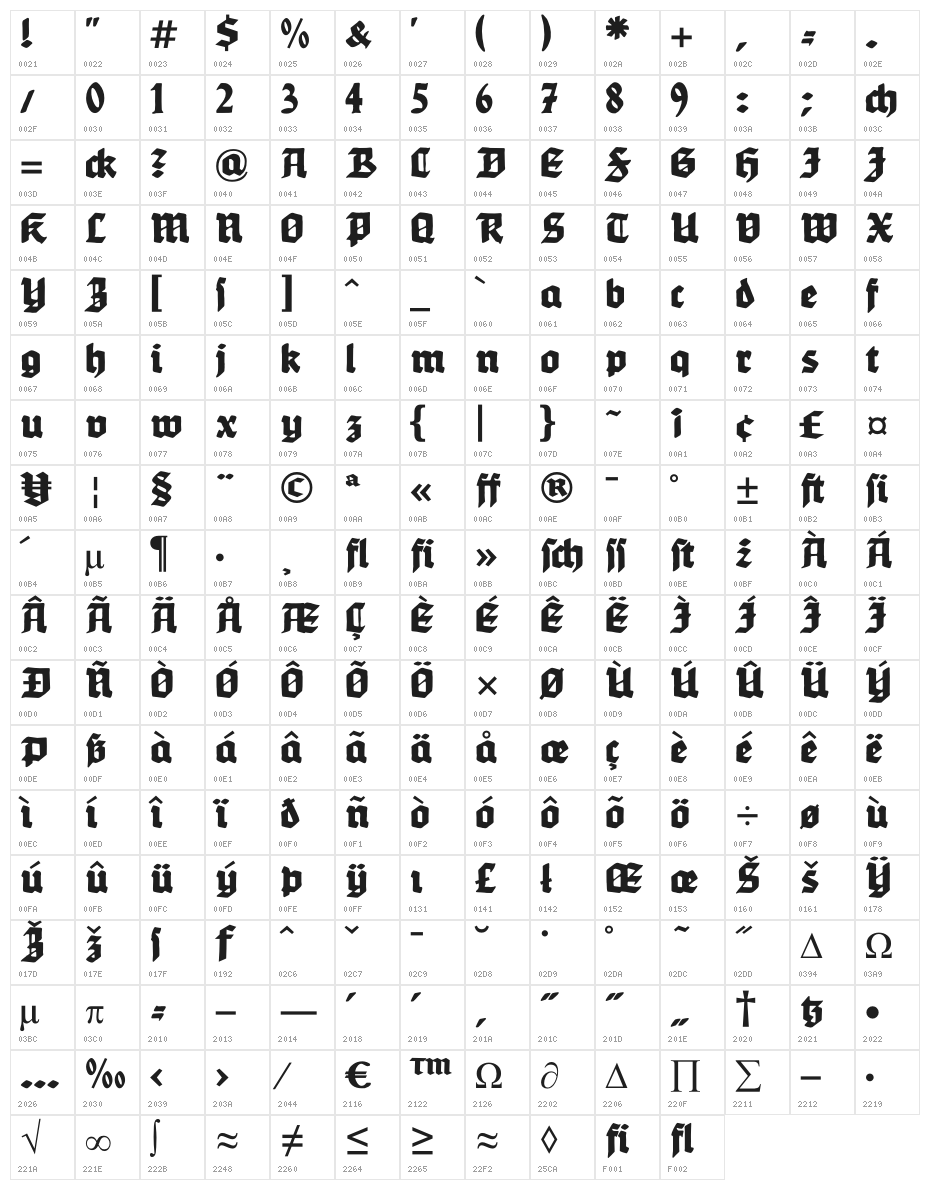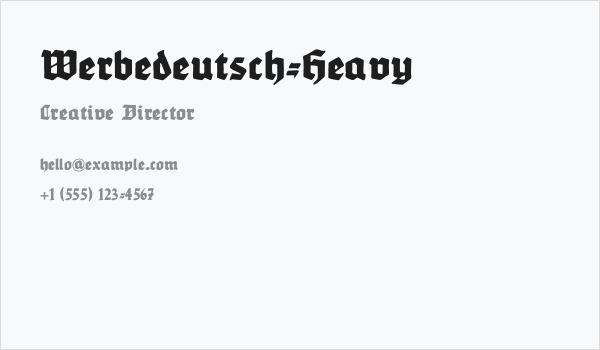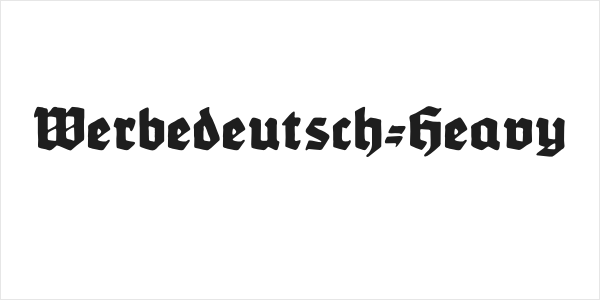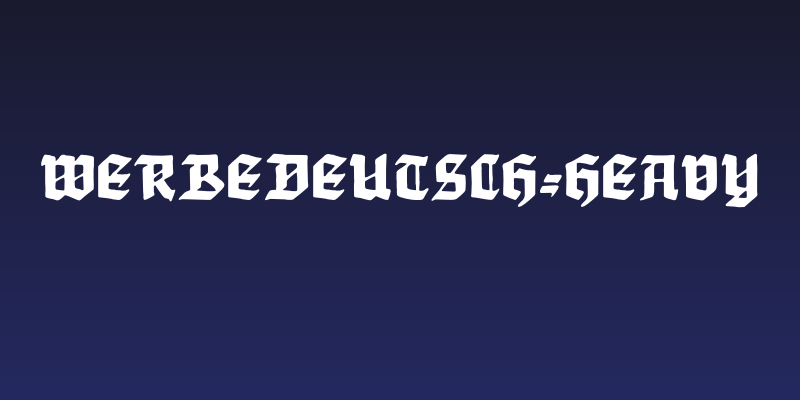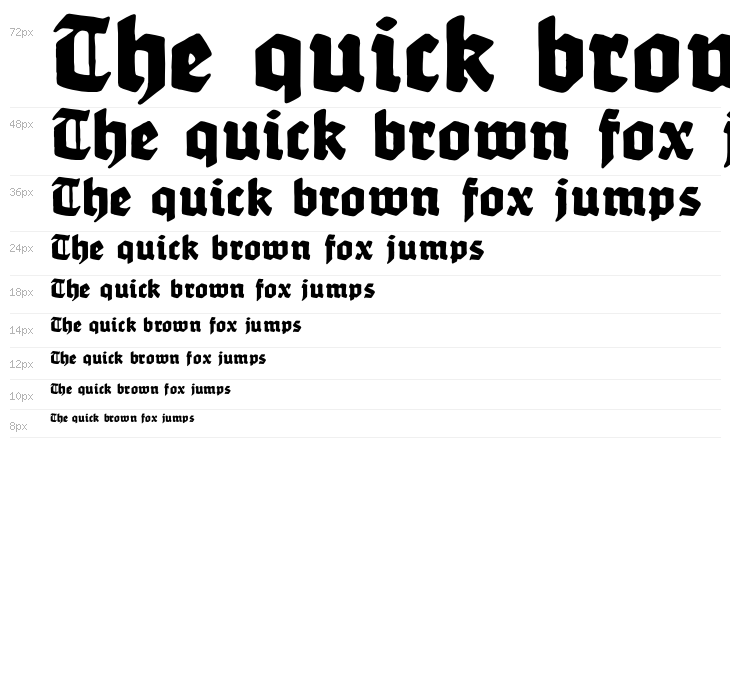
Werbedeutsch-Heavy Font
Werbedeutsch-Heavy Description
This font exhibits a bold and dramatic style reminiscent of traditional Blackletter typefaces. The characters are characterized by sharp, angular lines and a heavy weight, creating a strong visual impact. The uppercase letters are particularly striking, with intricate details and a sense of historical elegance. The lowercase letters maintain the same boldness, ensuring consistency throughout the typeface. Numerals and special characters are designed with the same attention to detail, making them suitable for various applications. The overall appearance is both authoritative and decorative, making it ideal for projects that require a touch of classic sophistication.
| Use Case | Headlines, Logos, Decorative text |
| Proposed Projects | Ideal for historical documents, event posters, book covers, and branding that requires a classic or medieval touch. |